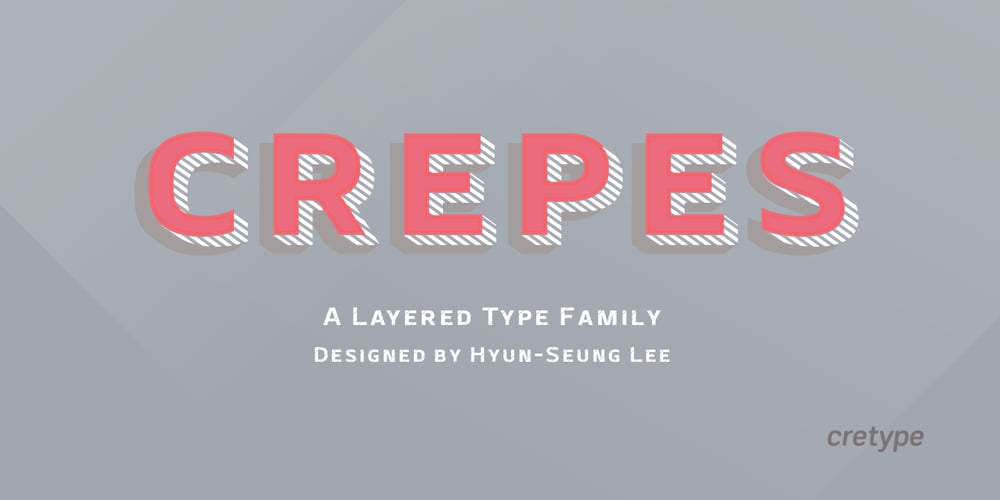
Crepes Font Family was designed by Hyun-Seung Lee and published by cretype. Crepes contains 25 styles and family package options. The Crepes is a layered type family consisted of 25 effect layer fonts. The basic shape of Crepes is re-designed based on ‘Geon’ and lower-case letters are replaced to small-capitals. Endless effects can be created by combining each of different colored layer fonts. Variety of check and stripe patterns can be made with 9 stripe layer fonts. The Open Type fonts contain complete Latin 1252, Central European 1250, Turkish 1254 character sets. Each font includes proportional figures, old-style figures, tabular figures, numerators, denominators, superscript, scientific inferiors, subscript, fractions and case features. We highly recommend it for use in headlines, logotypes, signs, posters, greeting cards, letterhead, t-shirts and so on.